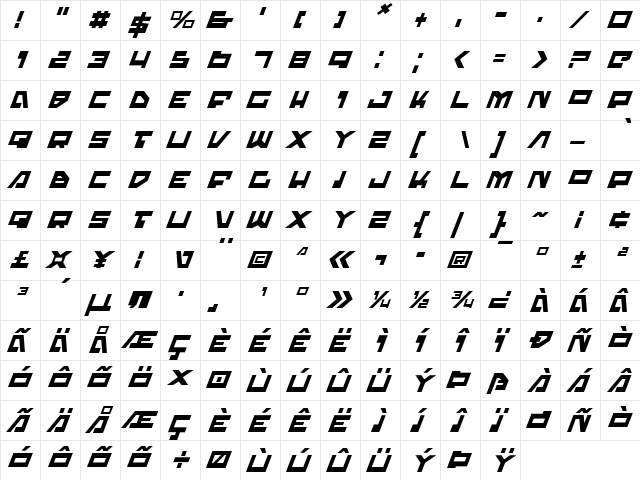
Trajia Italic Italic
Design Context for Trajia Italic Typeface
Trajia Italic is a composed and adaptable typeface that performs quietly and consistently across a wide range of design contexts. The slanted form adds forward momentum and visual energy.
Pro Tip: Try Trajia Italic for annotation and caption copy alongside an upright companion — the contrast in angle creates a dynamic but ordered typographic system.